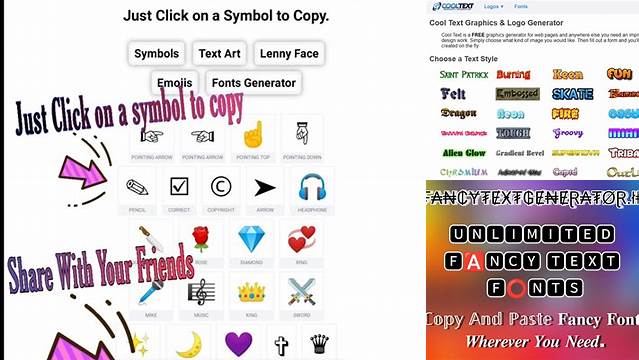
Fancy Text Generator: Cool Fonts & Symbols For Social Media
Hey guys! Ever wanted to jazz up your social media posts, add a bit of flair to your online presence, or just make your texts stand out from the crowd? Well, you're in luck! In this article, we're diving deep into the world of cool fancy text generators, stylish fonts, and unique symbols that can transform your ordinary text into eye-catching masterpieces. Let's get started!
What is a Cool Fancy Text Generator?
So, what exactly is a cool fancy text generator? Simply put, it's a tool that allows you to convert regular, plain text into something much more visually appealing. These generators use a variety of Unicode characters, symbols, and creative formatting techniques to produce text that looks different from the standard fonts you see every day. Whether you're aiming for elegant calligraphy, bold and blocky letters, or something totally quirky and unique, these generators have got you covered.
Cool fancy text generators are super user-friendly. Most of them work on a simple principle: you type your text into a box, and the generator instantly provides you with a range of fancy text options. You can then copy and paste these generated texts into your social media profiles, messaging apps, documents, or anywhere else you want to add a bit of pizzazz. The beauty of these tools lies in their simplicity and the wide array of styles they offer. From gothic fonts to bubble letters, the possibilities are virtually endless. Plus, many of these generators are free to use, making them accessible to everyone.
One of the key advantages of using these generators is their ability to create text that stands out. In a world where everyone is bombarded with information, it's crucial to find ways to capture attention. Stylish fonts and unique symbols can make your content more memorable and engaging. Whether you're promoting a product, sharing an update, or just expressing yourself, fancy text can help you make a lasting impression. Think of it as adding a visual hook to your words, drawing people in and making them want to learn more. For instance, imagine you're running a contest on Instagram. Using a fancy font to announce the giveaway can immediately grab the attention of your followers, increasing participation and engagement. Or, if you're sending out a birthday message, a decorative font can add a personal and heartfelt touch, making the recipient feel extra special.
Moreover, these generators are not just for social media. They can also be used in a variety of other contexts. For example, if you're designing a logo or creating marketing materials, fancy fonts can help you establish a unique brand identity. A well-chosen font can convey the personality of your brand, whether it's sophisticated, playful, or edgy. Similarly, if you're working on a creative project, such as a poster or an invitation, fancy text can add a touch of elegance and flair. The key is to choose a font that complements the overall design and message of your project. In the realm of digital marketing, using fancy text can also improve your SEO. While search engines primarily index standard text, incorporating stylish fonts and symbols can make your content more visually appealing to users, increasing the likelihood that they'll click on your links and spend time on your site. This, in turn, can boost your search engine rankings.
Why Use Cool Fonts and Symbols?
Why should you even bother with cool fonts and symbols? Well, there are plenty of reasons! First and foremost, they add visual interest. Let's face it, walls of plain text can be boring. By incorporating fancy fonts and symbols, you break up the monotony and make your content more engaging. This is especially important on platforms like Instagram, Twitter, and Facebook, where users are constantly scrolling through a deluge of posts. If you want to stand out, you need to grab their attention quickly, and fancy text can do just that.
Another reason to use stylish fonts is to express your personality or brand identity. The font you choose can say a lot about who you are or what your brand represents. A playful, bubbly font might be perfect for a children's brand, while a sleek, modern font might be better suited for a tech company. By carefully selecting fonts that align with your brand values, you can create a cohesive and memorable brand image. Furthermore, unique symbols can add an extra layer of meaning and emotion to your text. A heart symbol can convey love and affection, while a star symbol can signify excellence or achievement. By using symbols strategically, you can enhance the emotional impact of your message and connect with your audience on a deeper level.
Beyond aesthetics, cool fancy text can also improve readability. While it might seem counterintuitive, certain fancy fonts can actually make your text easier to read. This is especially true for headings and subheadings, where a distinctive font can help readers quickly identify the main points of your content. However, it's important to use fancy fonts judiciously. Overusing them can have the opposite effect, making your text cluttered and difficult to follow. The key is to strike a balance between style and clarity.
Let's talk about the practical applications of using cool fonts and symbols. Imagine you're creating a social media campaign for a new product launch. By using fancy text in your posts, you can generate buzz and excitement around the launch. You can also use symbols to highlight key features or benefits of the product. For example, if you're launching a new fitness app, you could use a muscle emoji to emphasize the strength-building aspect of the app. Similarly, if you're running a contest or giveaway, you can use fancy text to make the announcement more eye-catching and memorable. In the world of email marketing, fancy fonts can also help you stand out from the inbox clutter. By using a distinctive font in your subject line, you can increase the likelihood that your email will be opened. However, it's important to ensure that the font is compatible with different email clients and devices. Otherwise, your message might not display correctly, which can be frustrating for your recipients.
How to Use a Fancy Text Generator
Alright, so you're convinced that cool fancy text generators are awesome. But how do you actually use them? The process is usually super simple. Here's a step-by-step guide:
- Find a Generator: There are tons of fancy text generators online. Just do a quick Google search for "fancy text generator," "cool font generator," or "text symbol generator," and you'll find plenty of options.
- Type Your Text: Once you've found a generator you like, there will usually be a text box where you can type in the text you want to transform.
Cool fancy text generators are a fantastic way to add some personality and pizzazz to your online presence. With a wide variety of fonts and symbols to choose from, you can create text that truly stands out from the crowd. So go ahead, give it a try, and see how fancy text can transform your digital world! Remember to always consider your audience and the context in which you're using fancy text. While it can be a fun and effective way to grab attention, it's important to use it judiciously and avoid overdoing it. The key is to strike a balance between style and clarity, ensuring that your fancy text enhances your message rather than detracting from it. Happy generating!